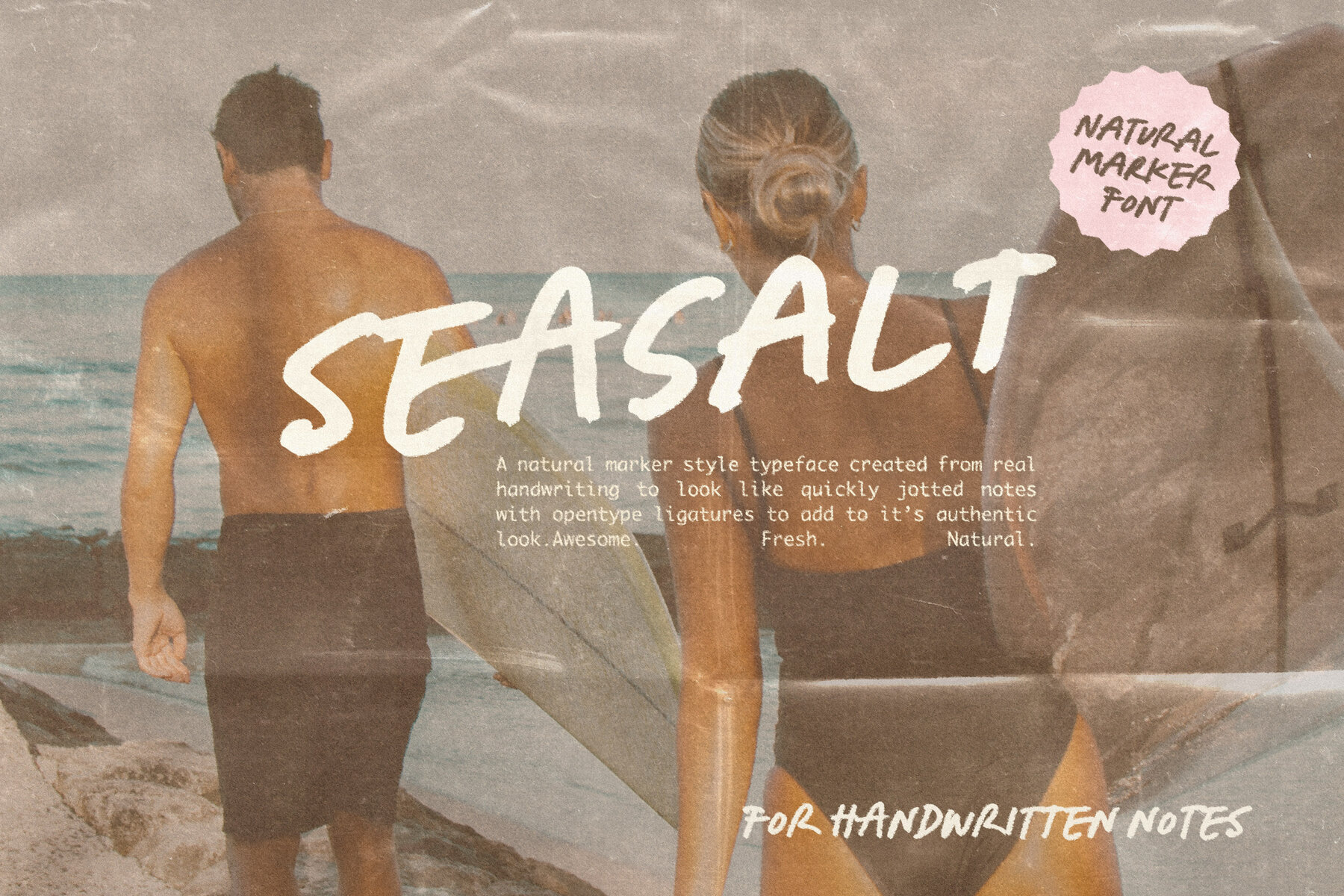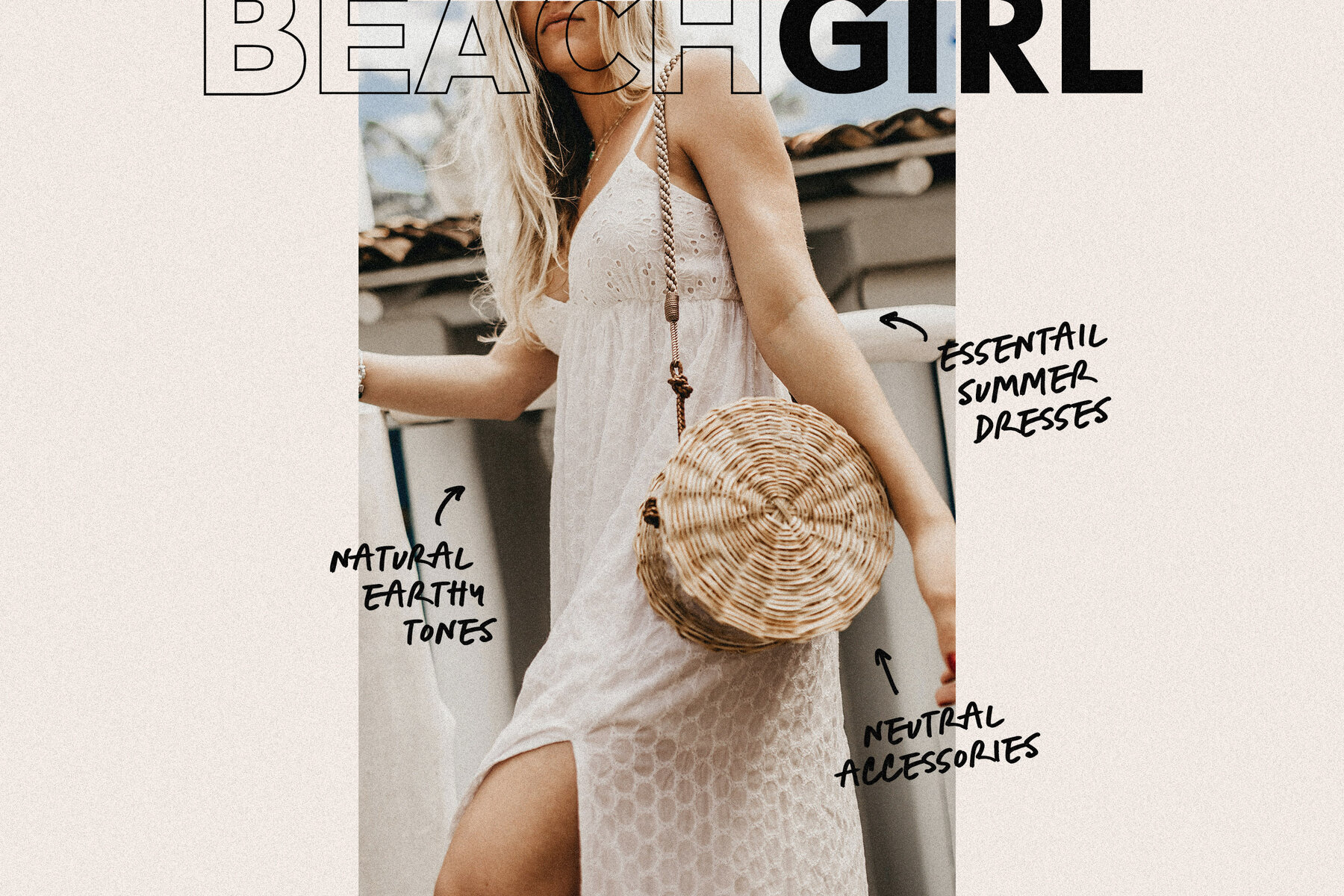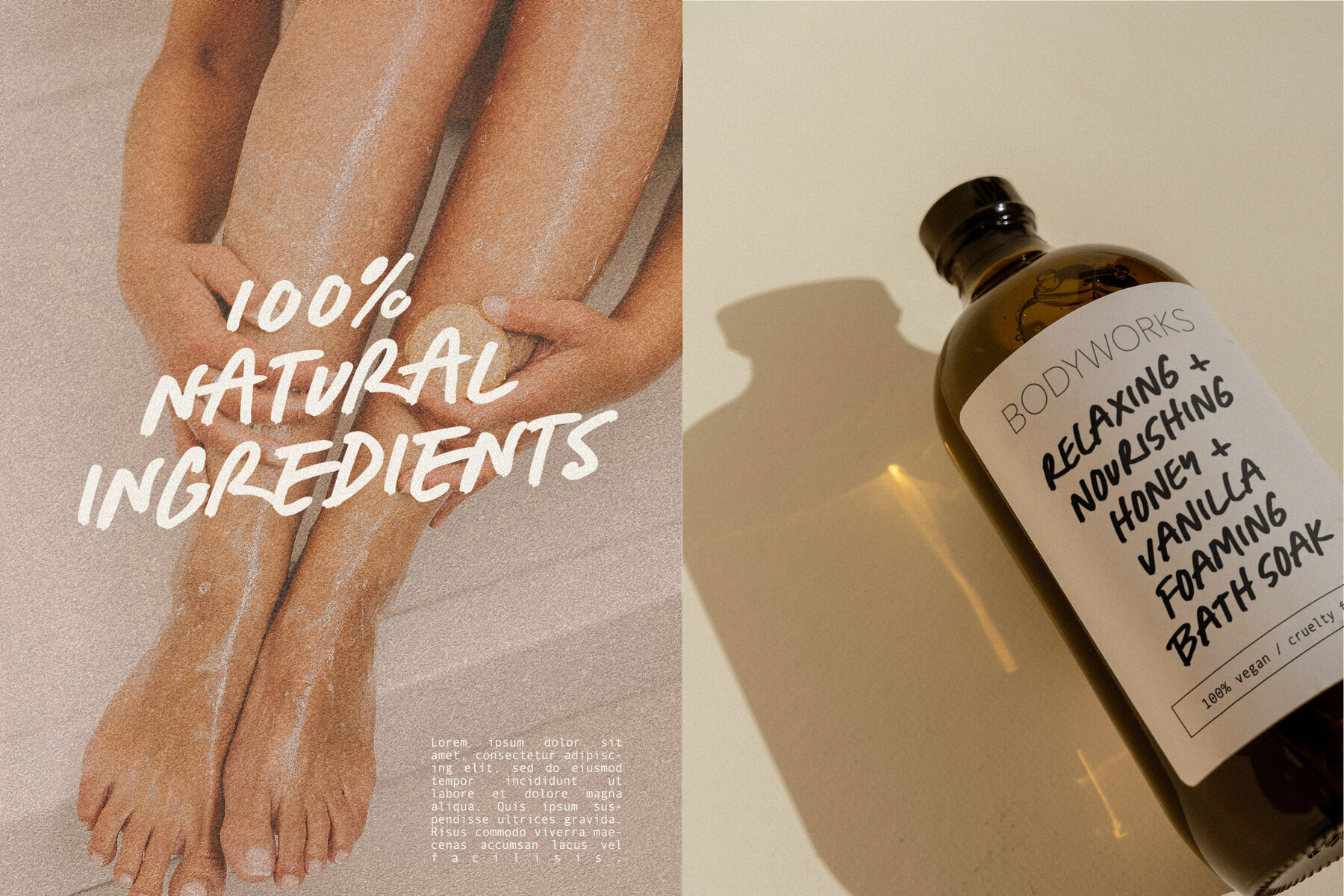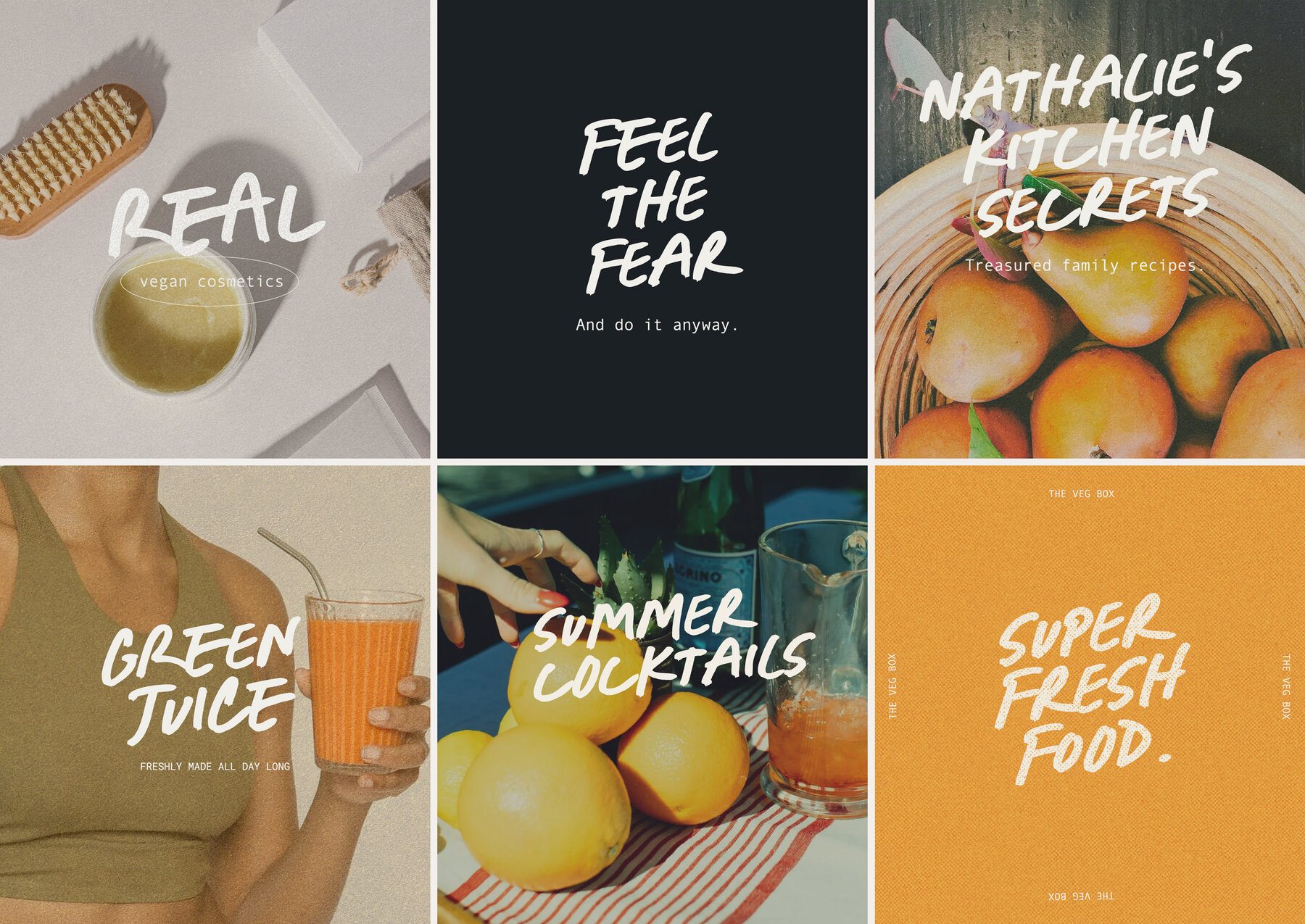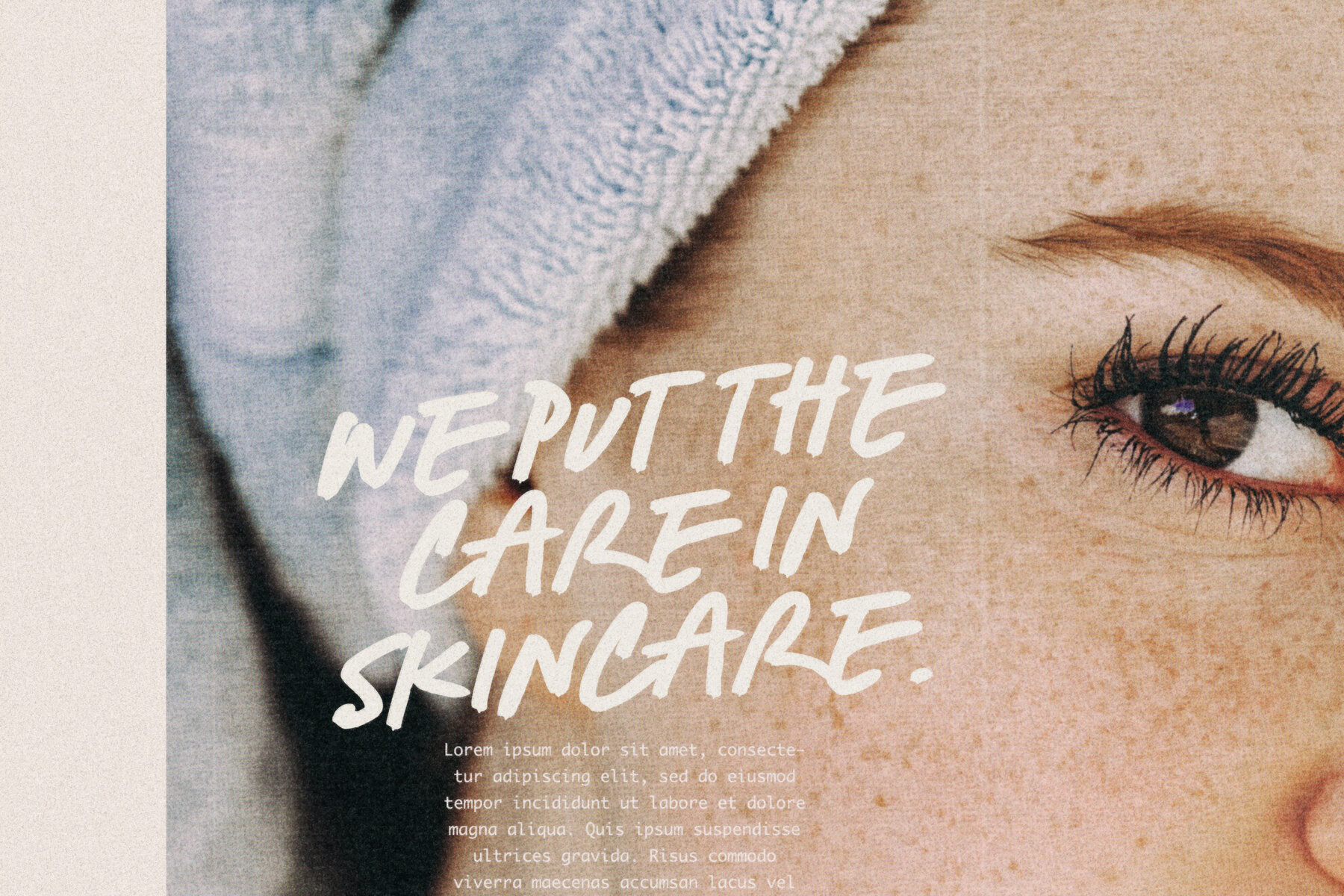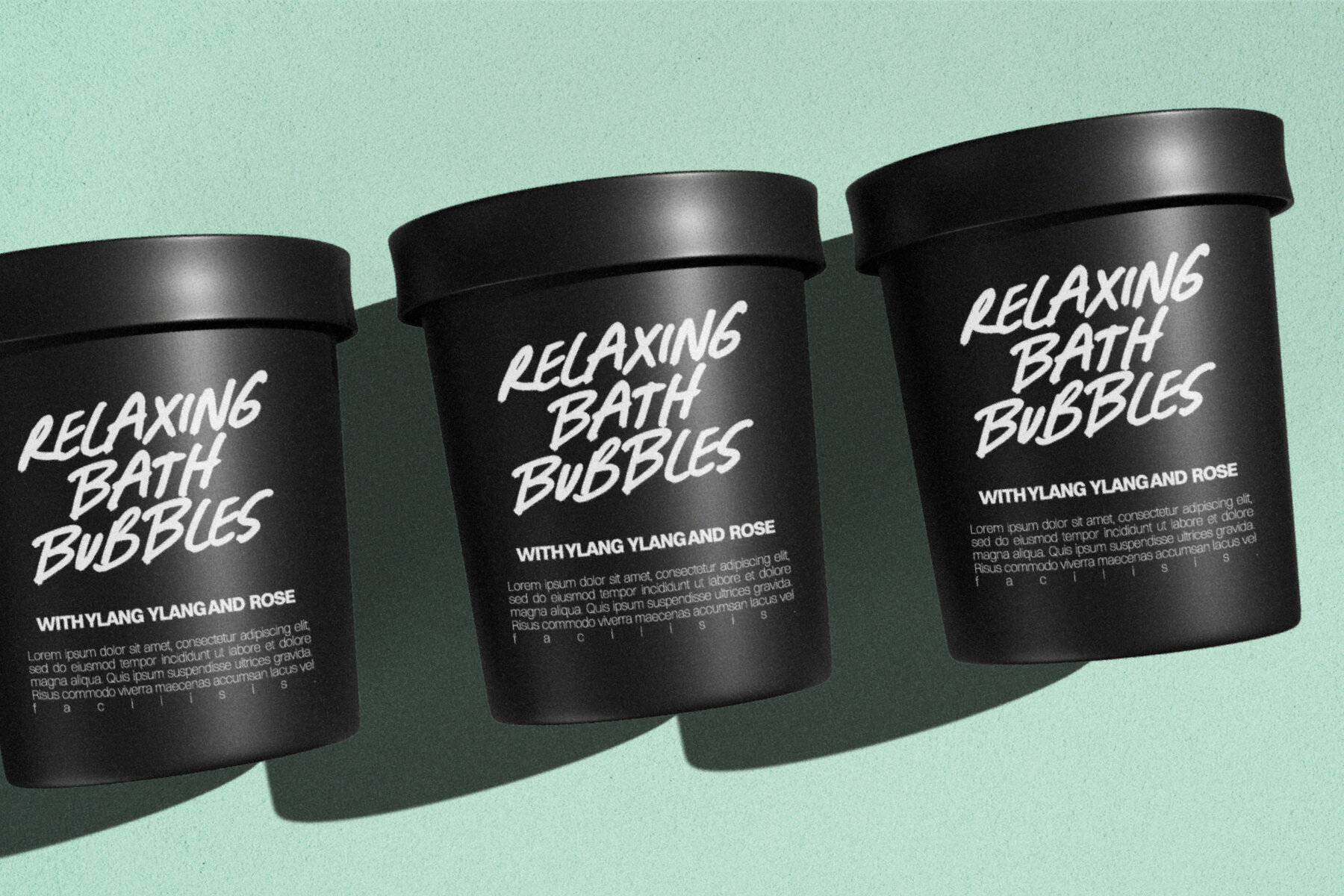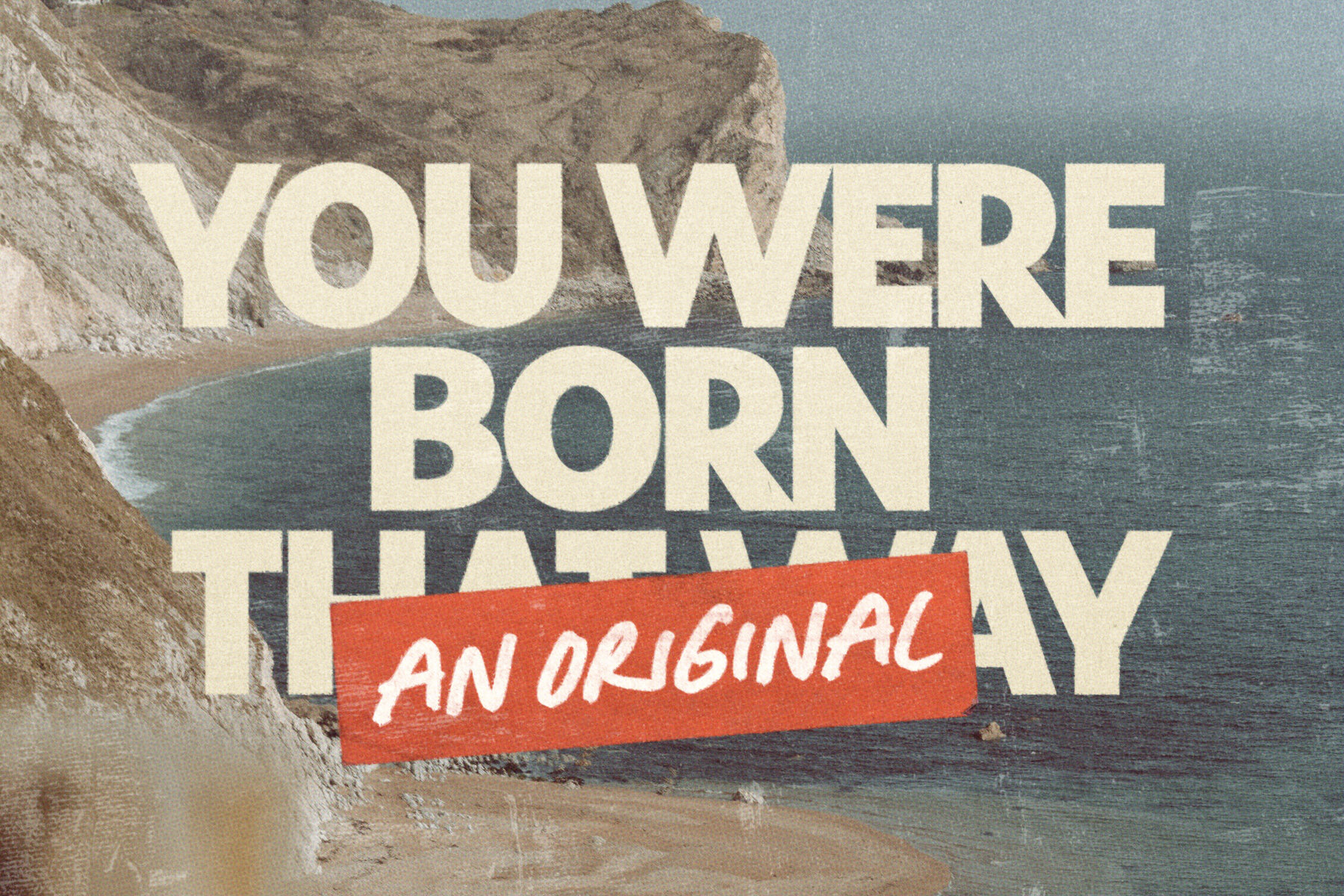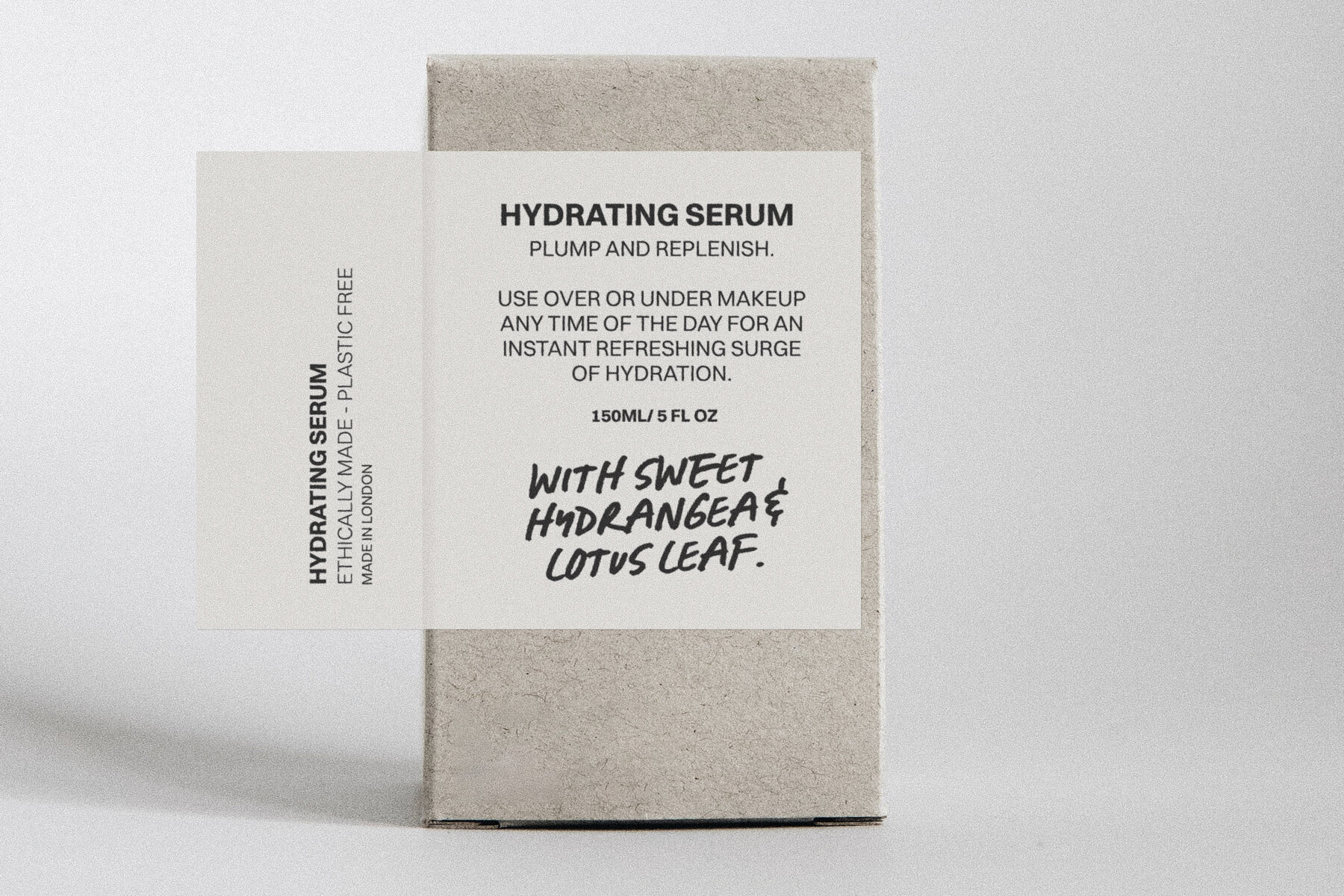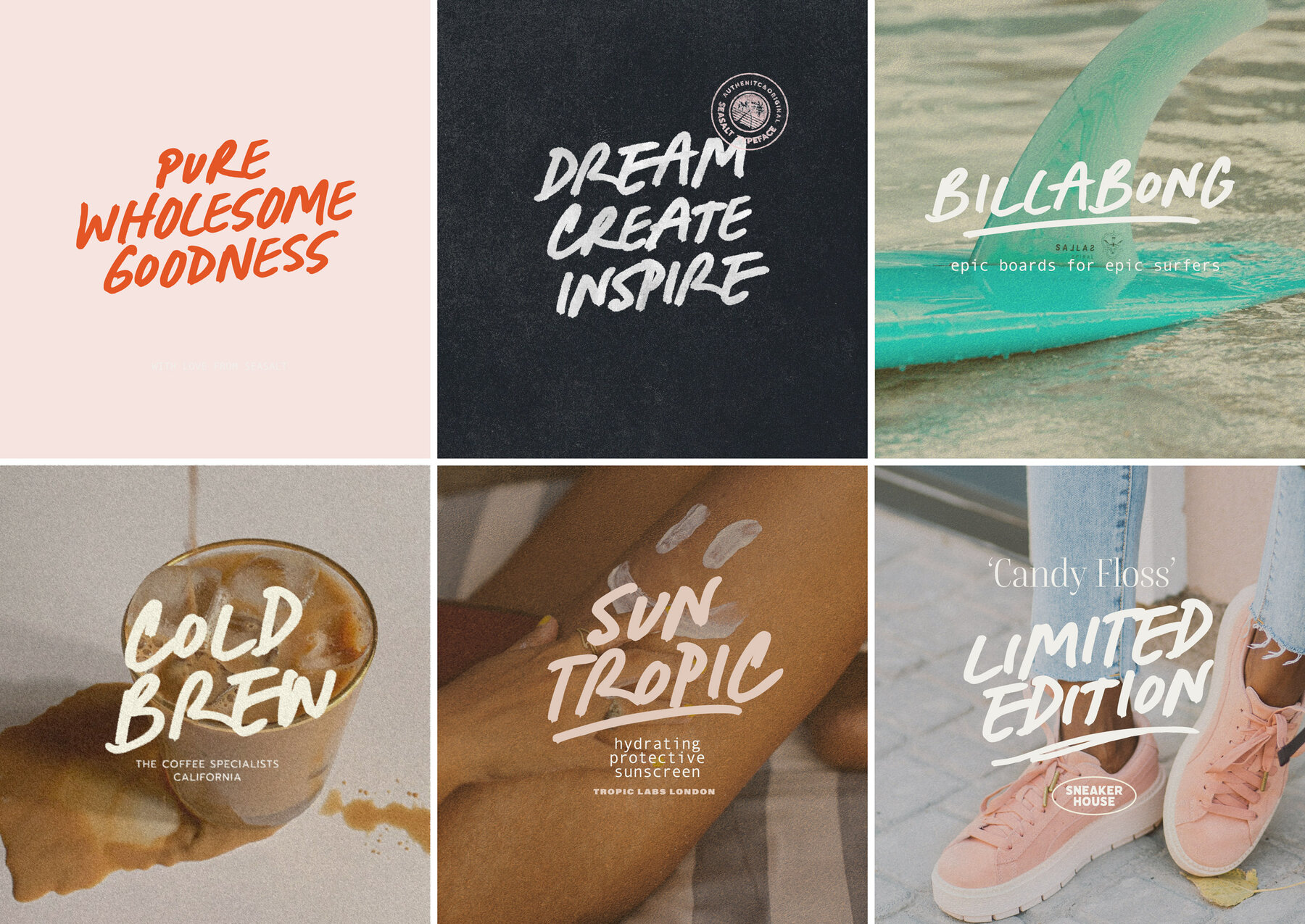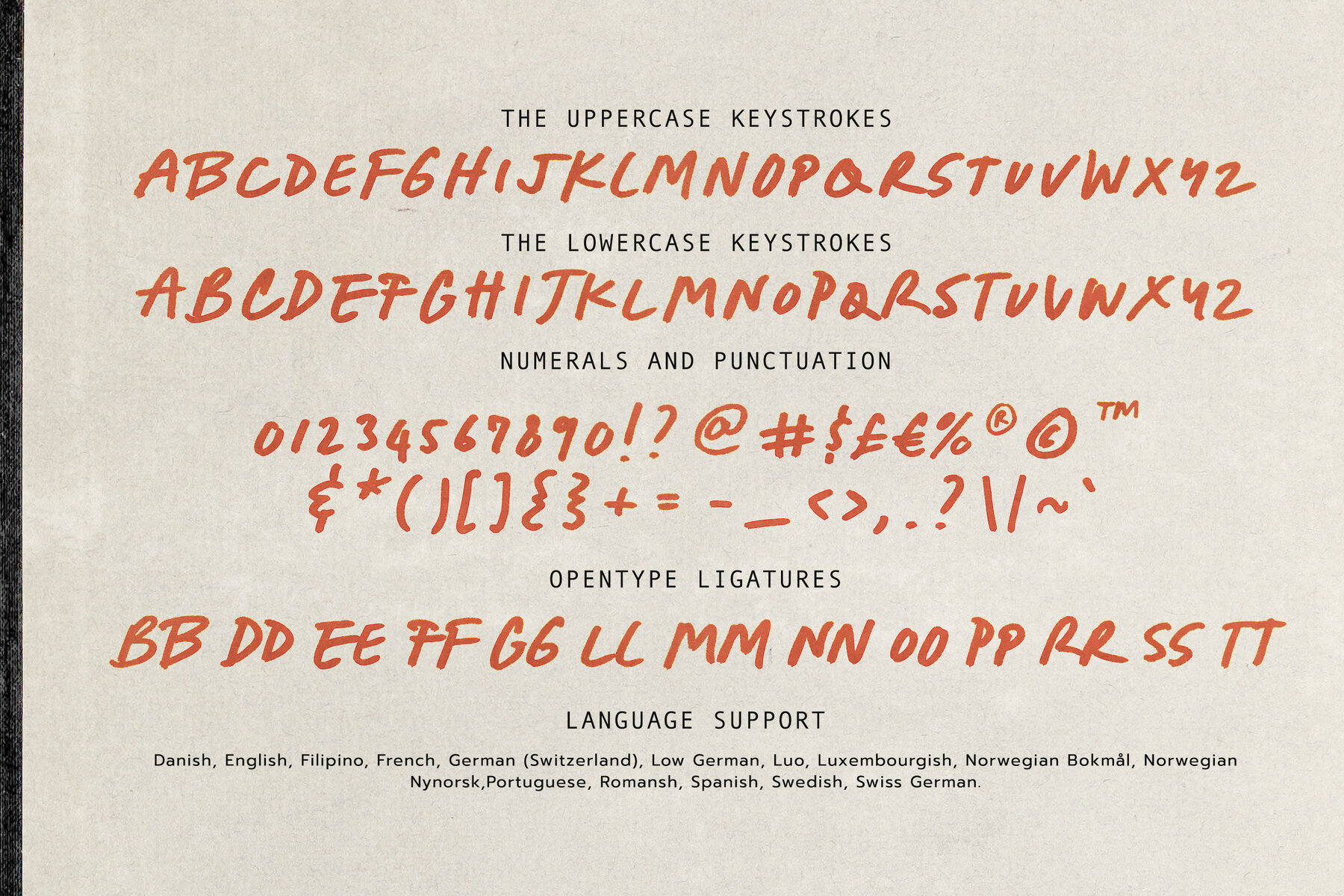
Seasalt - Casual Marker Font
Imbued with a sense of freedom and breath of fresh air, Seasalt Typeface is a captivating casual marker typeface that has been meticulously designed by Nicky Laatz with an artistic touch. Meant to mimic natural-looking handwritten notes, it maintains an informal yet captivating appeal that is poised to invigorate your design projects. With its integration of OpenType ligatures, Seasalt Typeface enhances its realism, presenting an organic aesthetic that boasts of flexibility and adaptability, perfect for a diverse array of designs. No other typeface underscores its message on visual platforms with such brilliance, guaranteeing an indelible impact on your audiences. Whether you are a graphic designer aiming for an intriguing artwork or a marketing firm seeking an engaging visual presentation, Seasalt Typeface will meet your requirements flawlessly. Features:Unleash Creativity with Seasalt Typeface
A Sublime Marker Typeface for Graphic Designers and Marketing Firms